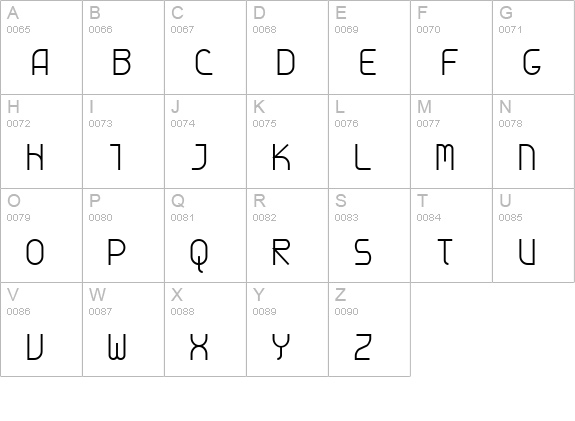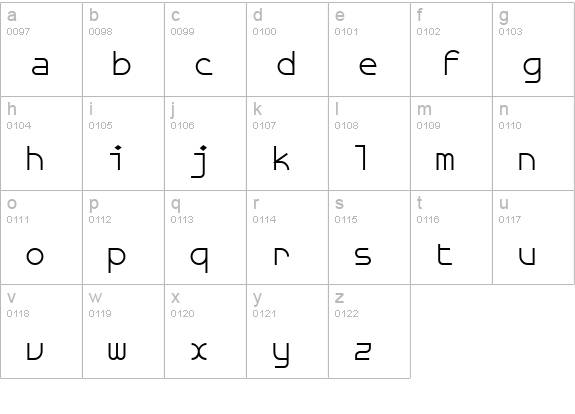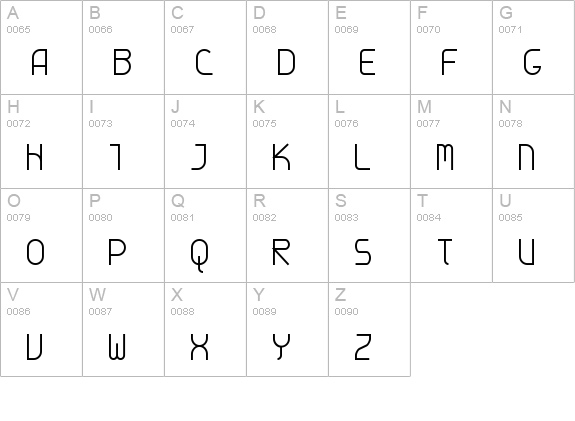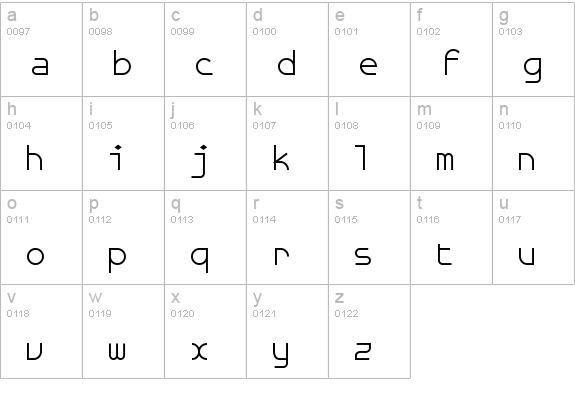
GalexicaMono Plain Font Details
GalexicaMono Plain is a stunningly simple yet versatile font that exudes a timeless elegance. With its clean lines and uncomplicated design, this font effortlessly captures attention and adds a touch of sophistication to any project. Whether you're creating a professional document, designing a logo, or enhancing your website's typography, GalexicaMono Plain is the perfect choice. Its legibility and clarity make it ideal for both print and digital applications, ensuring your message is conveyed with utmost clarity and style. The beauty of GalexicaMono Plain lies not only in its aesthetics but also in its functionality. Its wide range of weights and styles allows you to experiment and find the perfect fit for your creative needs. From thin and delicate to bold and powerful, this font offers endless possibilities for expressing your vision. And the best part? GalexicaMono Plain is completely free! Yes, you read that right. This remarkable font is freely available to download at FontsMarket.com, making it accessible to designers, professionals, and enthusiasts alike. You no longer have to compromise on quality or break the bank to elevate your designs. So, why wait? Discover the captivating simplicity of GalexicaMono Plain and unleash your creativity like never before. Download it now from FontsMarket.com and embark on a design journey that is both effortless and extraordinary.